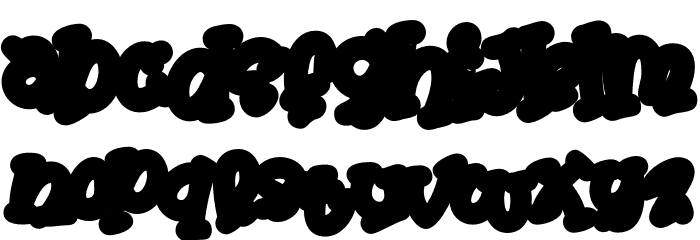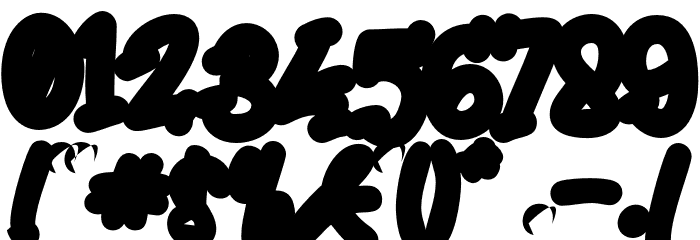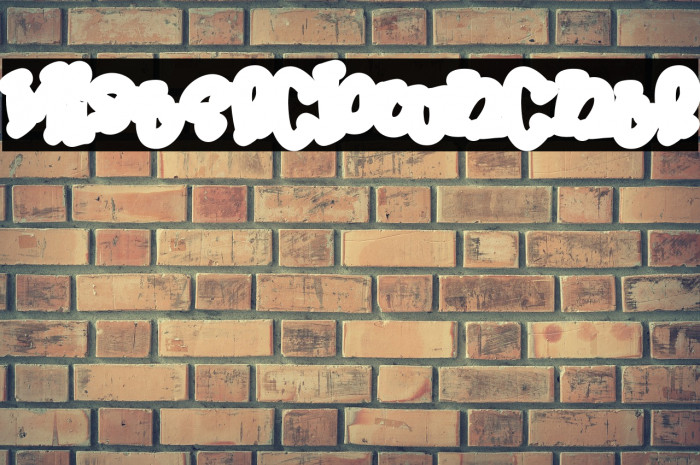
MisterClownCntr Font
This font features a bold, playful style with exaggerated, rounded forms. The characters are heavily stylized, with thick strokes and a bubbly appearance that creates a sense of whimsy and fun. The uppercase and lowercase letters maintain a consistent weight, contributing to a cohesive look. The numbers and special characters follow the same design principles, ensuring uniformity across all elements. This font's unique style makes it stand out, offering a distinctive aesthetic that is both eye-catching and memorable.
A bold, playful font with rounded, exaggerated forms and a whimsical style.
- Proposed Projects: Ideal for children's book covers, playful branding, party invitations, and creative posters.
- Character Spacing: Tight
- Overall Style: Playful, Whimsical
- Use Case: Logos, Posters, Headlines